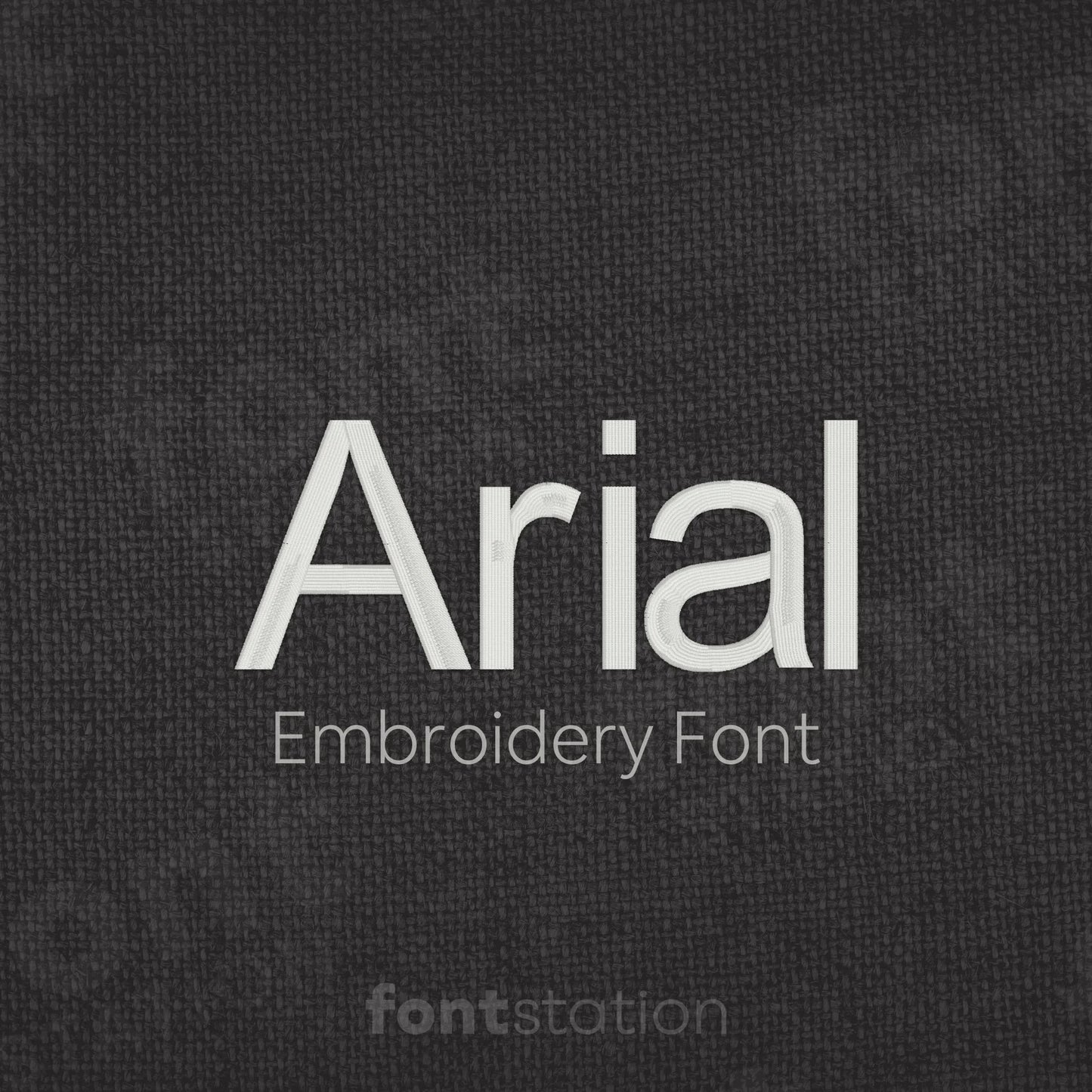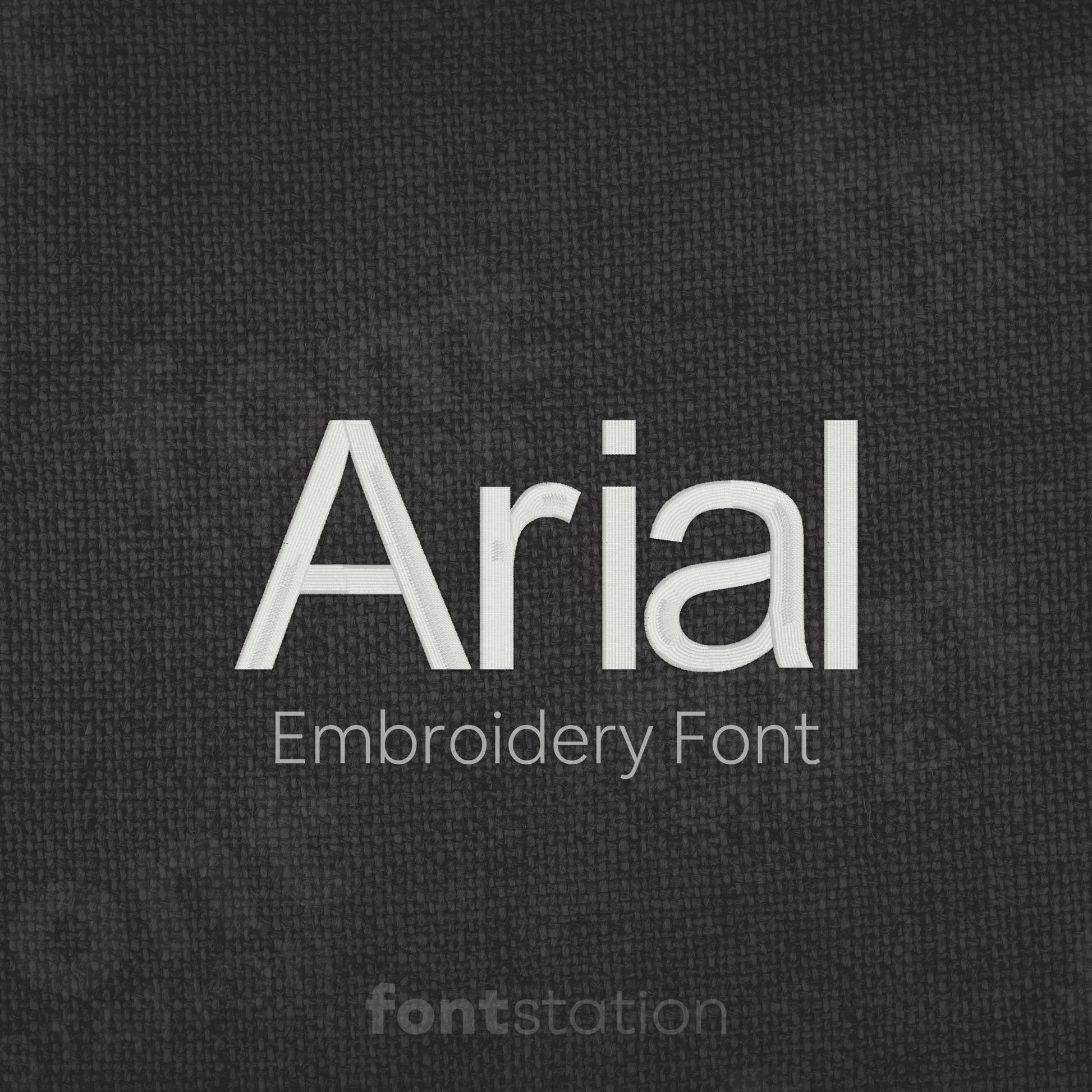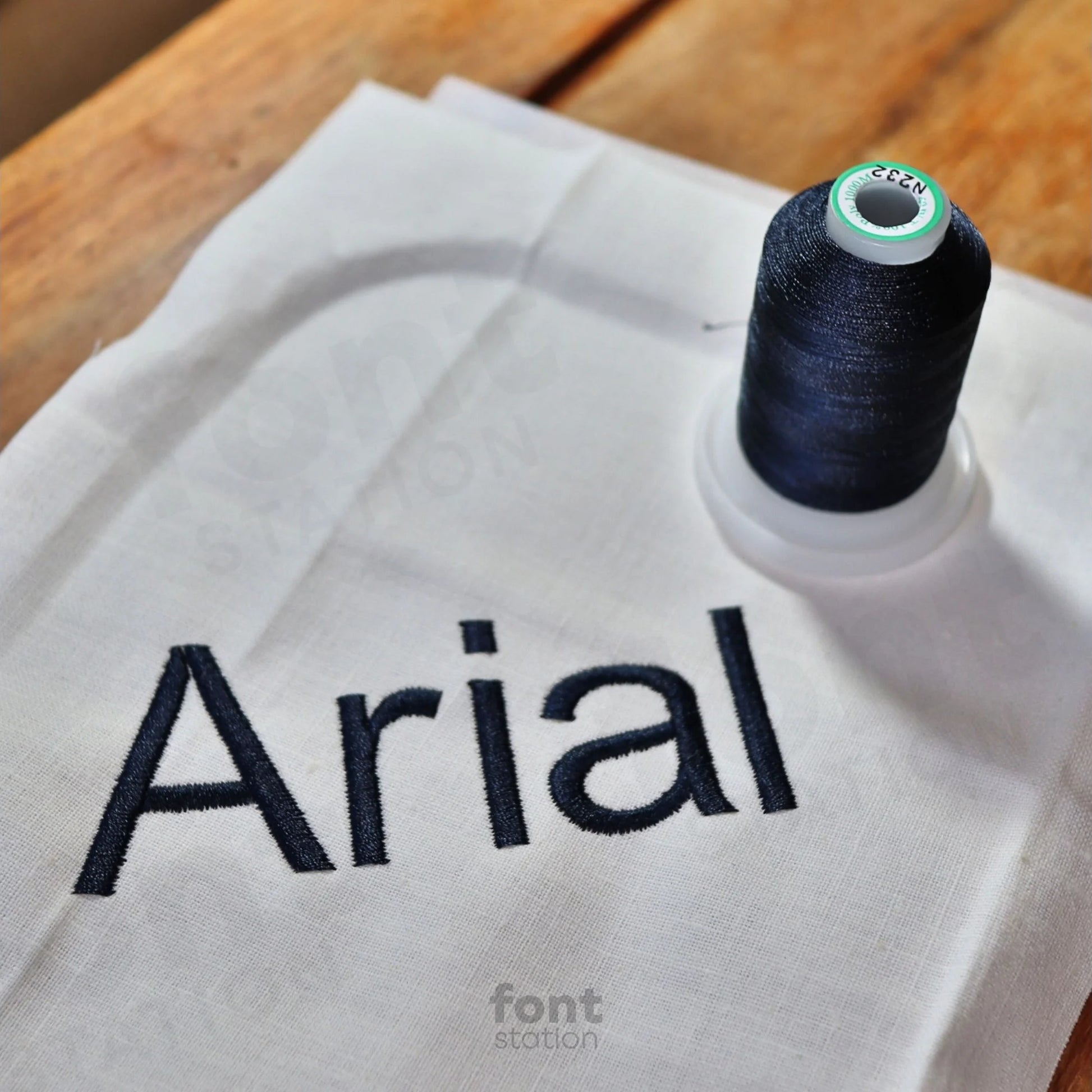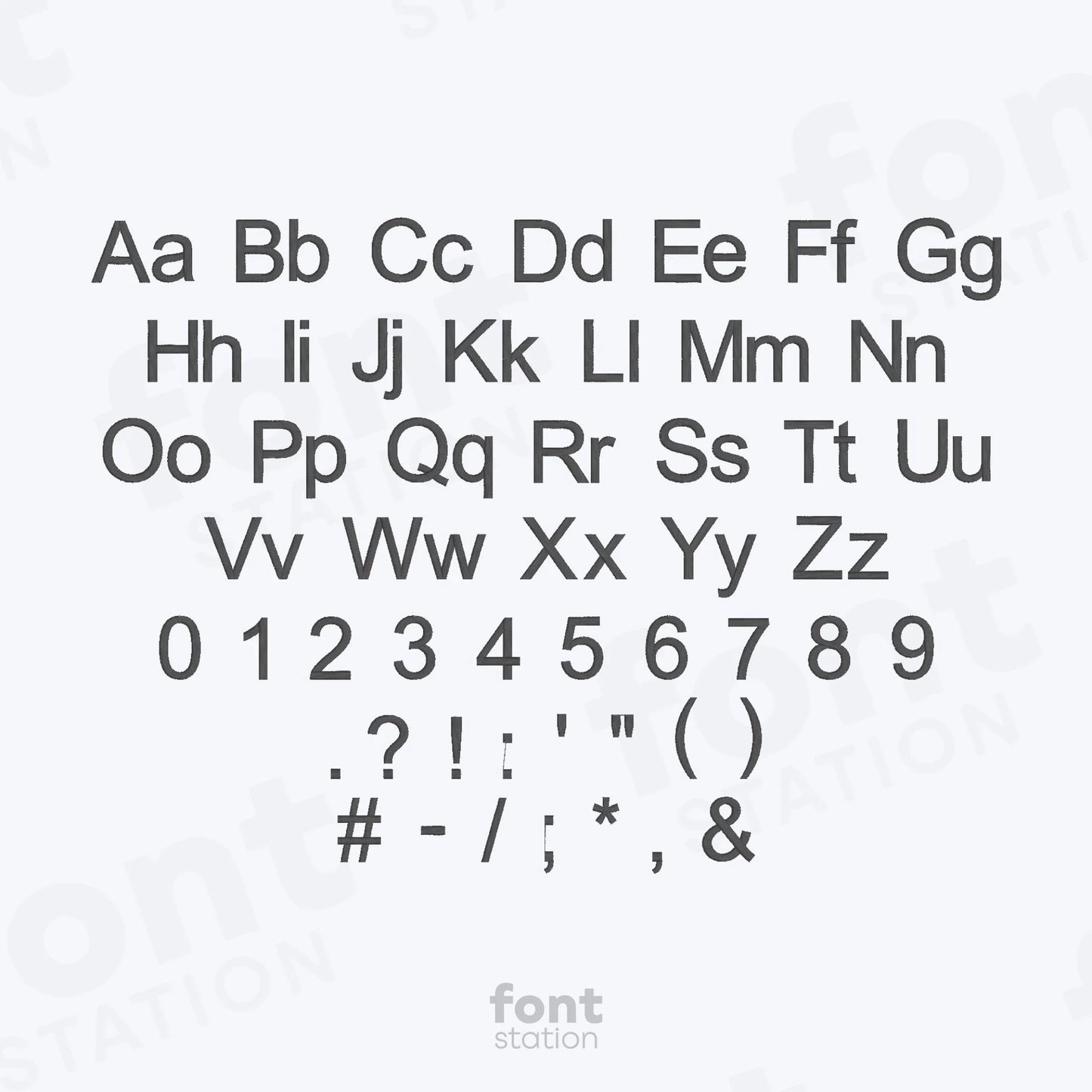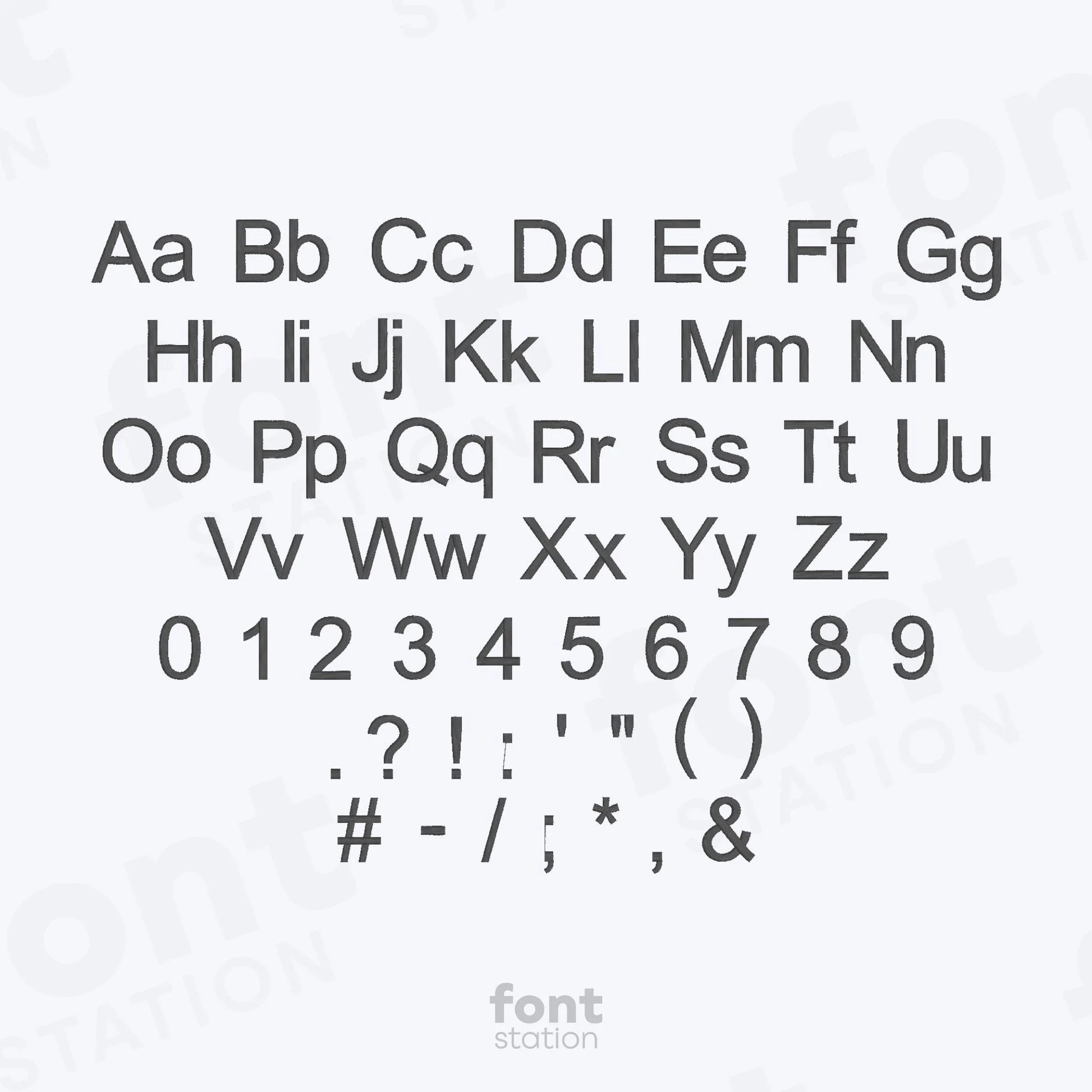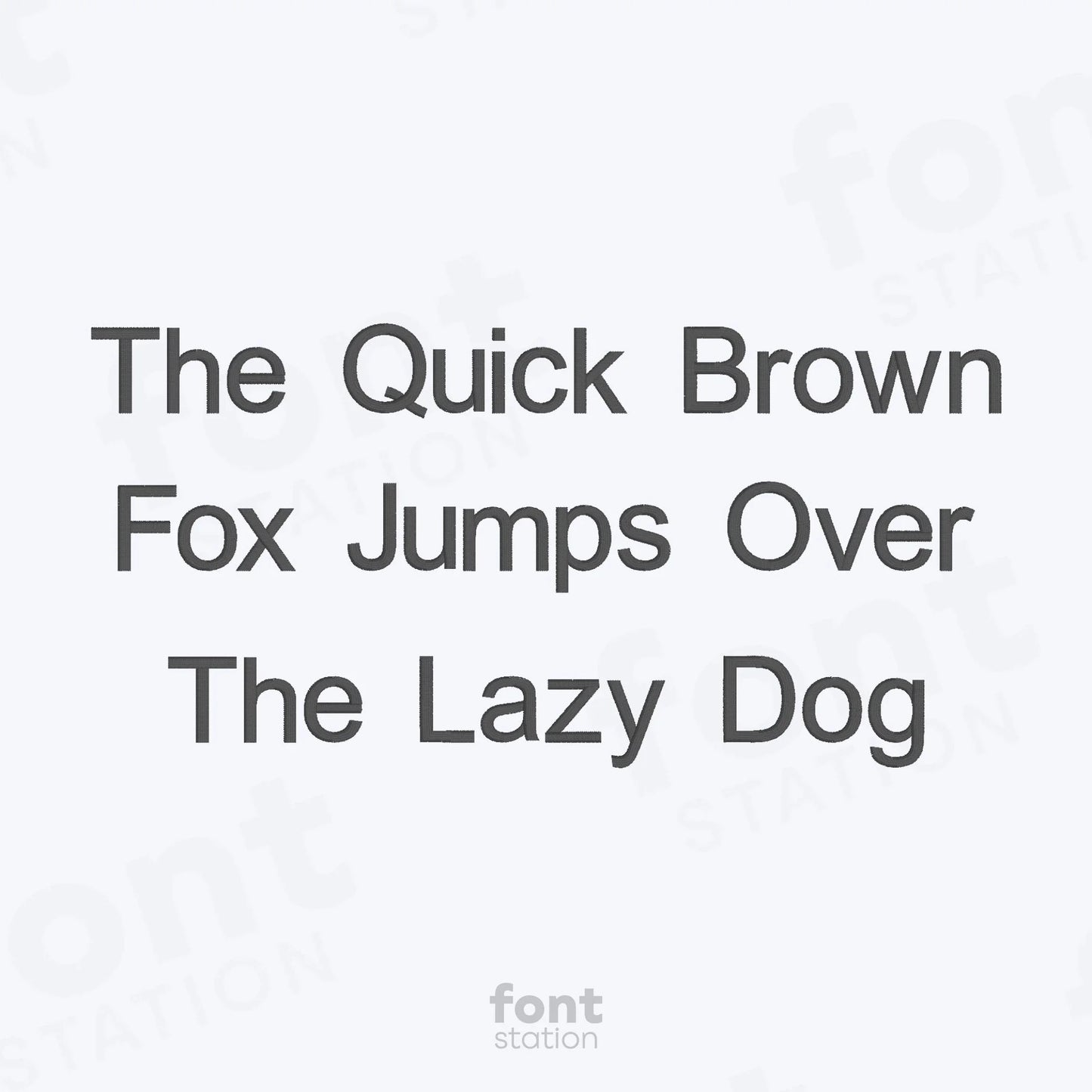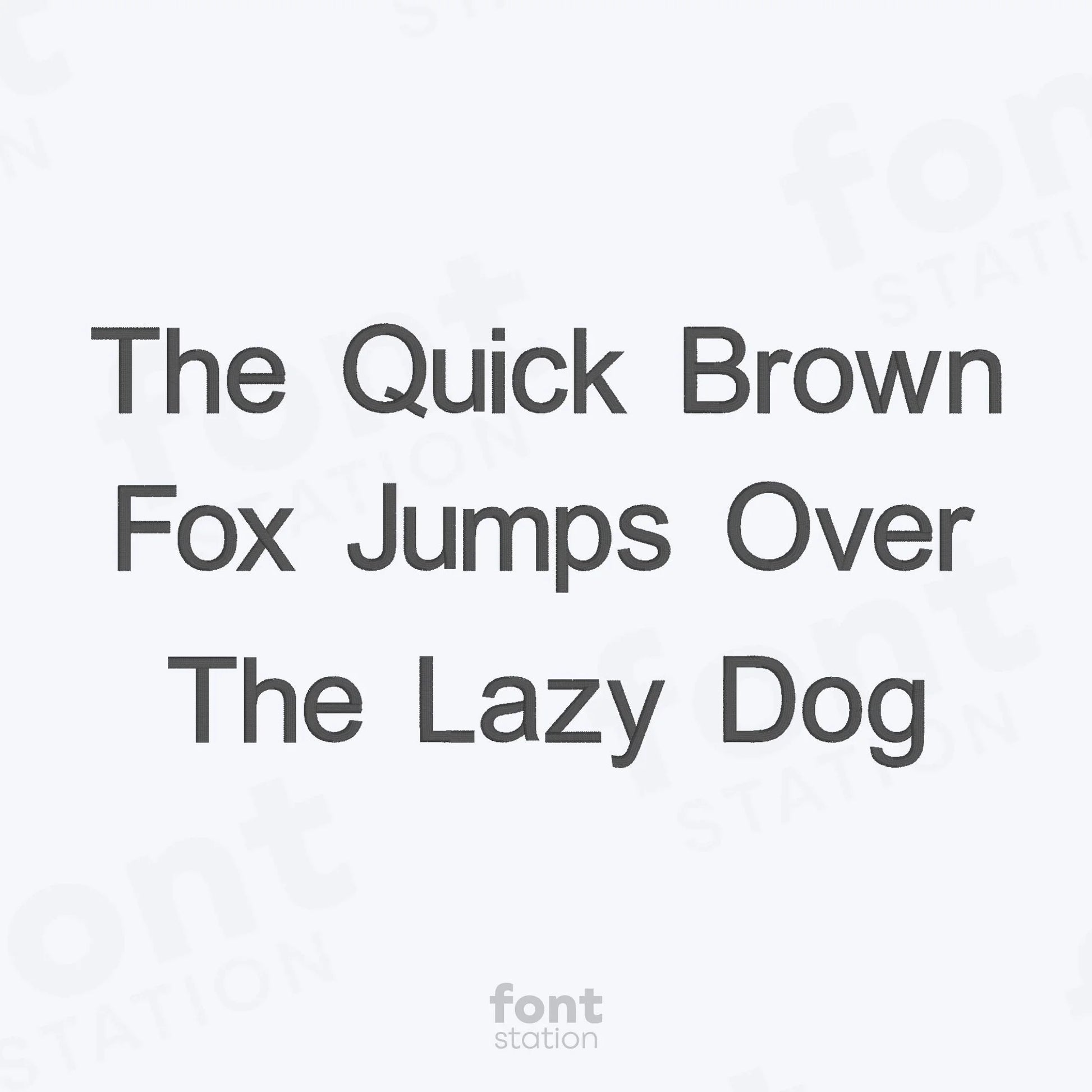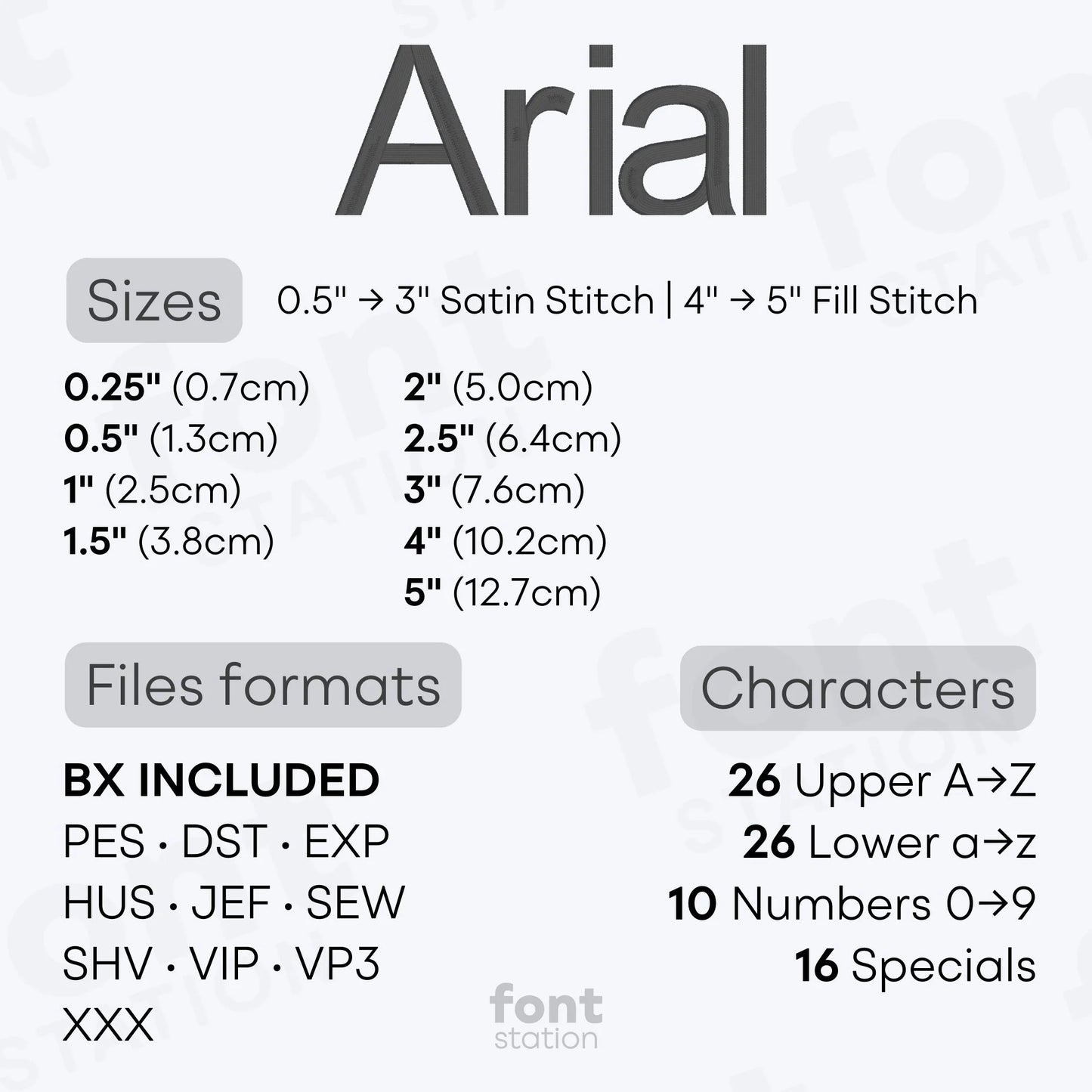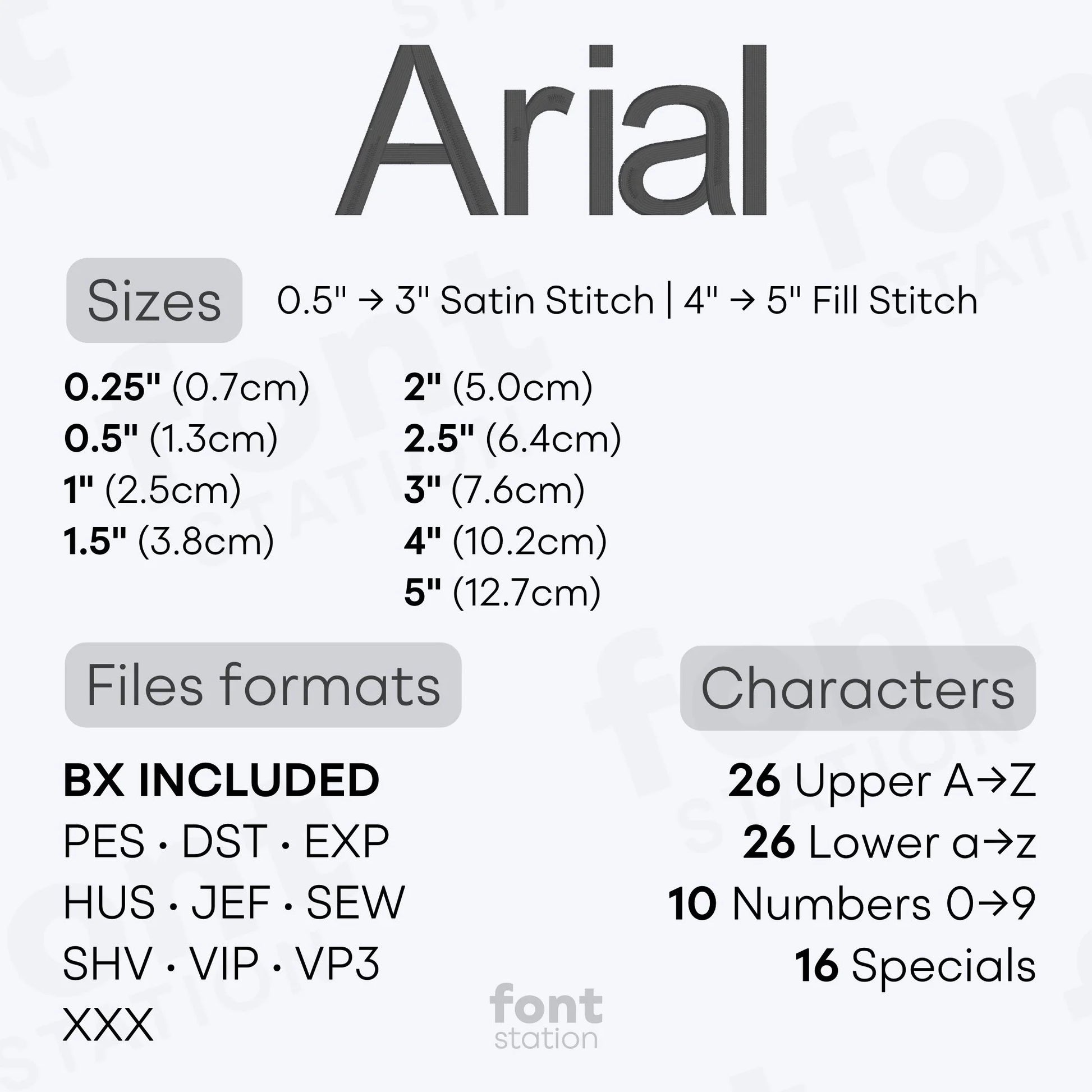
Arial Embroidery Font
Introducing our Arial embroidery font, a minimalist sans serif alphabet perfect for any project. These clean letters stitch beautifully on your embroidery machine, adding a modern touch to all your designs.
About the Arial Embroidery Font
Characters: 26 uppercase, 26 lowercase, 10 numbers, and symbols & ' * @ : , - . ! # ( ) ? " ; /
Our Arial embroidery font is a timeless, minimalist choice for modern embroidery projects.
This clean and simple sans serif embroidery alphabet is perfect for adding a professional, understated look to your custom designs. The Arial embroidery font includes a full set of letters, expertly digitized for smooth, high-quality stitching on any embroidery machine. Available in BX, PES, DST, JEF, and more, this versatile font is ideal for monograms, labels, and any clean-cut embroidery project.